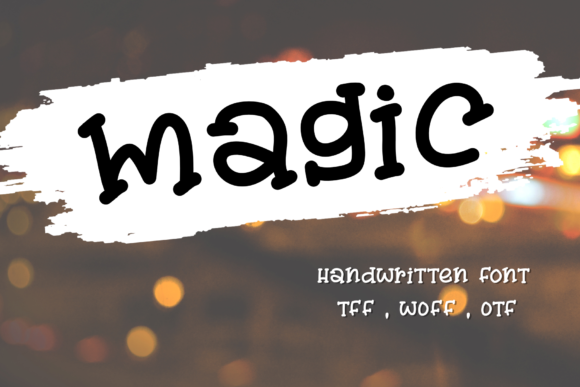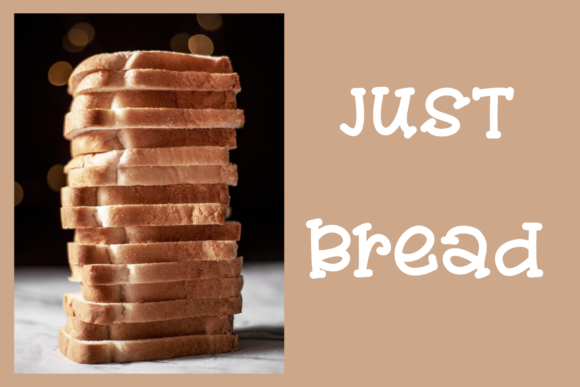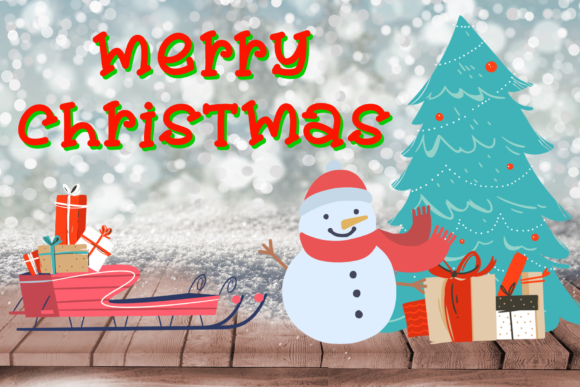
About Magic Font
Magic is a fun and quirky handwritten font that brings a touch of joy and modernity to all your design projects. With its playful and whimsical style, Magic is perfect for adding a lighthearted and youthful vibe to your creations.
The unique and distinct characters of Magic make it stand out from the crowd and add a sense of fun and personality to your designs. Whether you’re working on greeting cards, social media posts, posters, or any other project that requires a touch of playfulness, Magic is the perfect choice.
The quirky and modern style of Magic allows it to be incredibly versatile, making it suitable for a wide range of design contexts. Its fun and joyful appearance make it ideal for children’s projects, while its fresh and modern feel make it equally well-suited for contemporary and trendy designs.
Adding Magic to your projects will infuse them with a sense of excitement and wonder, making them stand out and capture the attention of your audience. Its fun and quirky nature will make your designs memorable and leave a lasting impression.
With Magic, you can confidently create designs that exude joy and creativity. Its playful and modern touch will instantly elevate your projects, making them more engaging and appealing to your target audience.
So unleash the magic of this fun and quirky handwritten font and watch it bring your designs to life. Whether you’re creating invitations, posters, or social media graphics, Magic will add that extra dose of joy and modernity that will make your designs truly magical.